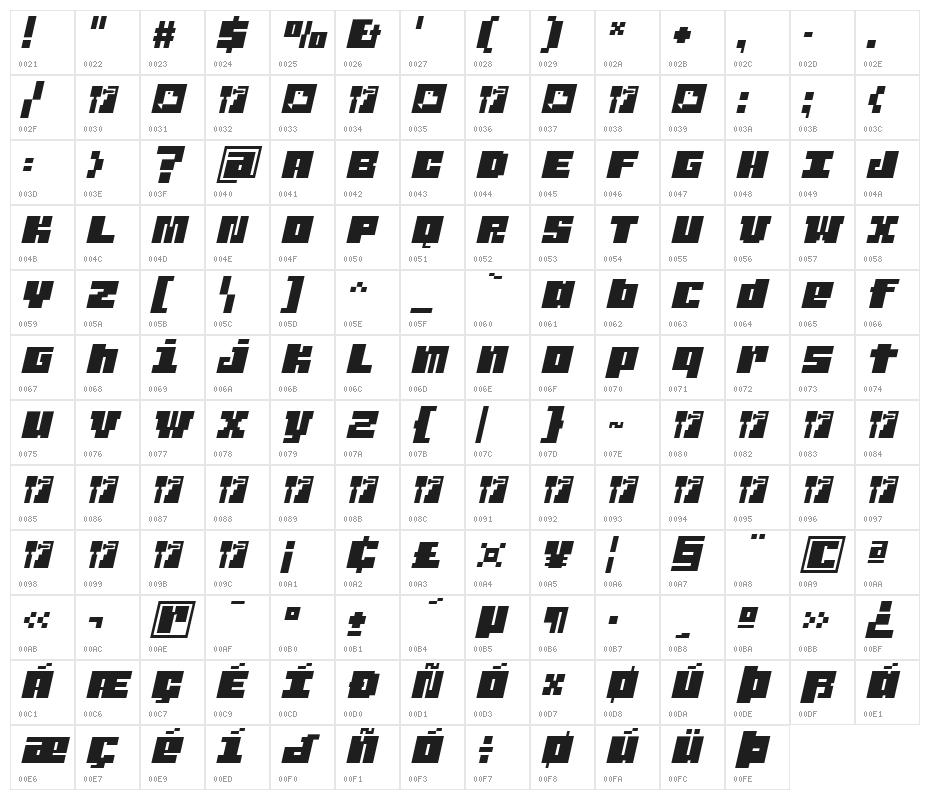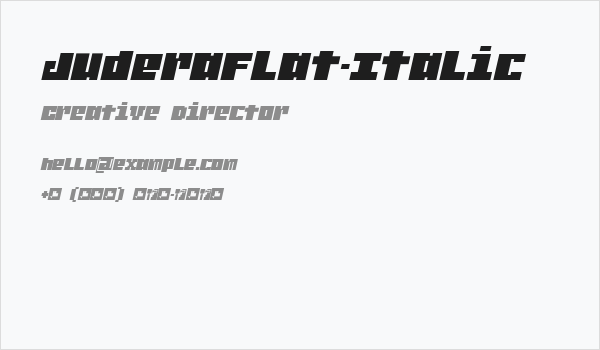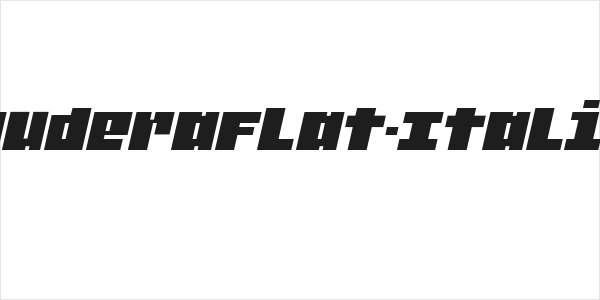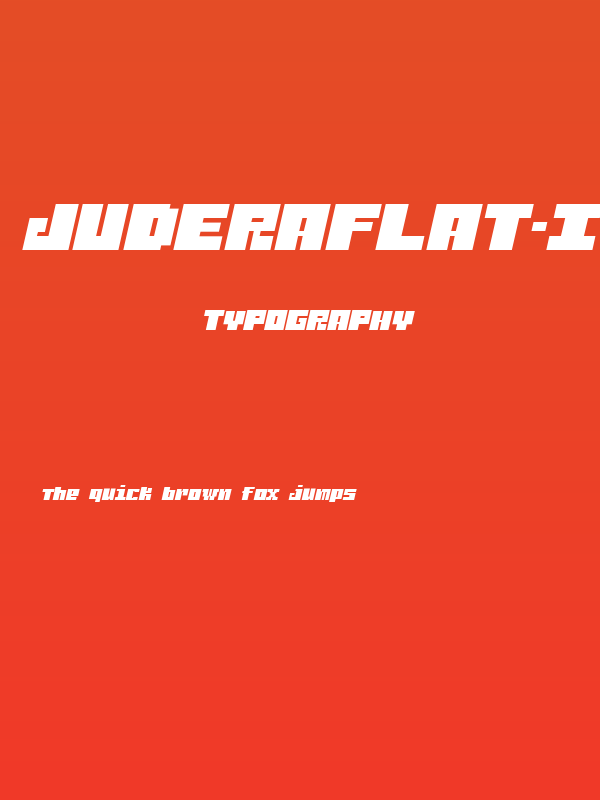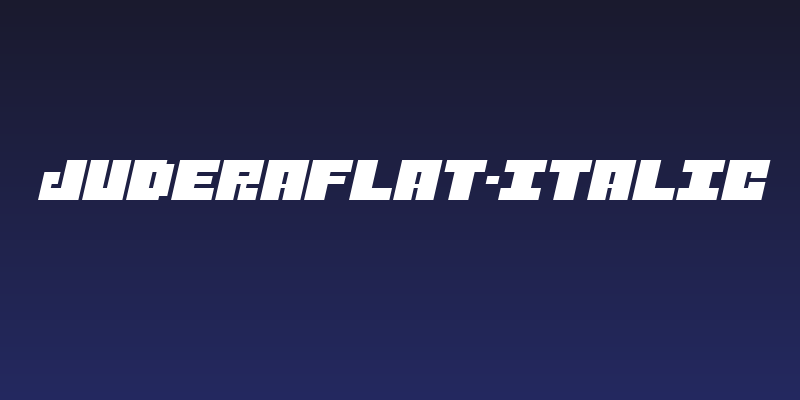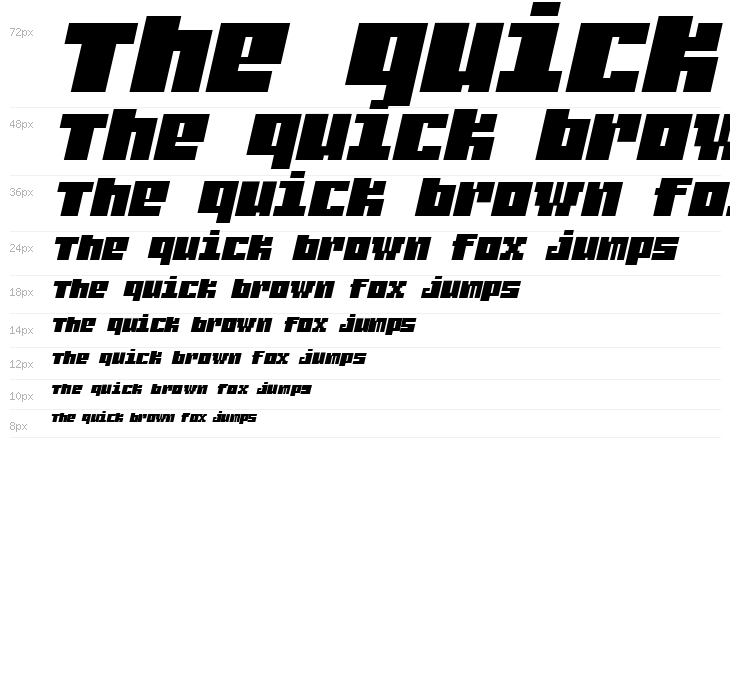
JuderaFlat-Italic Font
JuderaFlat-Italic Description
This font features a bold and dynamic style with a distinct italic slant, giving it a sense of motion and energy. The characters are blocky and geometric, with sharp angles and a modern aesthetic. The uppercase and lowercase letters maintain a consistent design, emphasizing a futuristic and edgy look. The numbers and special characters follow the same design principles, ensuring uniformity across all glyphs. This font is ideal for projects that require a strong visual impact and a contemporary feel.
| Proposed Projects | Ideal for branding, posters, video game graphics, and any project needing a futuristic and bold typeface. |